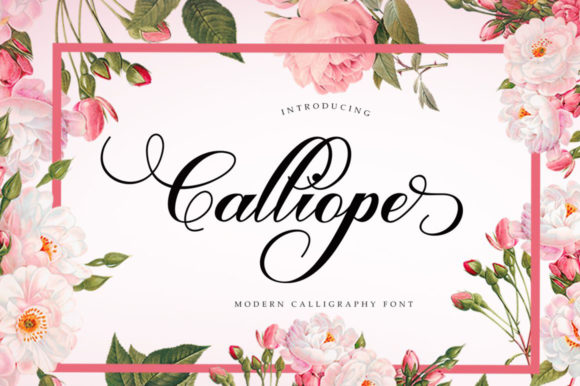
The Calliope Script Font: A Modern Calligraphy Dream
The Calliope Script Font is a modern calligraphy script that exudes a trendy and feminine style, perfect for making a statement on wedding invitations, thank you cards, posters, and so much more. Its irregular baseline gives it a delightfully organic feel that’s sure to set your designs apart.
- ✨ The elegant, flowing lines that scream sophistication and glamour
- ✅ The perfect blend of modern and classic calligraphy elements
- 💃 The irregular baseline that adds a touch of whimsy and playfulness
- 🎉 The versatility – it works beautifully on both digital and print designs
While the Calliope Script Font is an absolute stunner, there are a few things to keep in mind:
- ⚠️ It may not be the best choice for very small font sizes, as some details might get lost
- 🤔 It can be a bit tricky to read in large blocks of text, so it’s best used for headings or short paragraphs
The Story Behind Calliope Script Font
The Calliope Script Font was inspired by the Muses of Greek mythology, specifically Calliope, the muse of epic poetry. The font’s creator aimed to capture the essence of elegant, flowing script while infusing it with a modern, trendy twist. The result is a font that’s both timeless and cutting-edge.
Q: What is the best use for Calliope Script Font?
A: The Calliope Script Font is perfect for designs that require a touch of elegance and sophistication, such as wedding invitations, posters, and thank you cards.